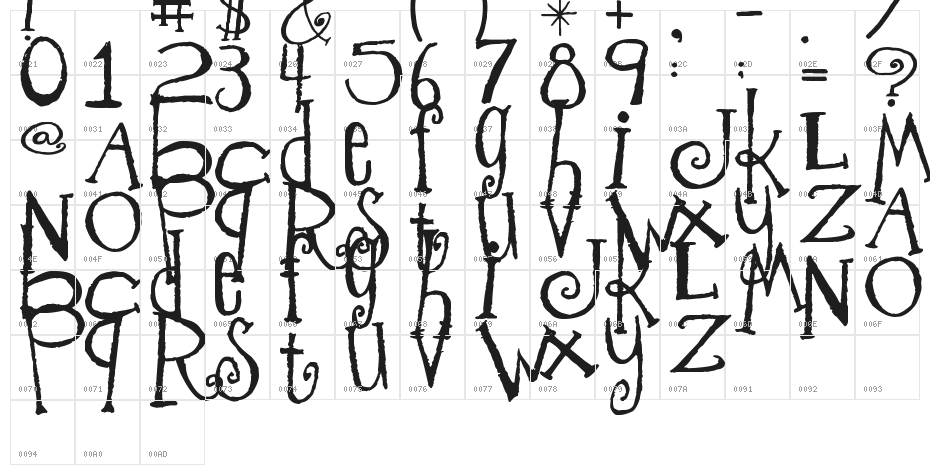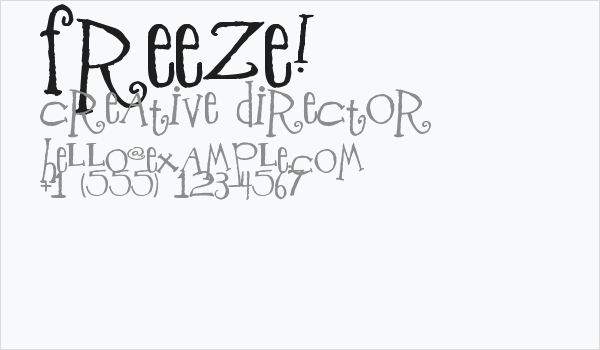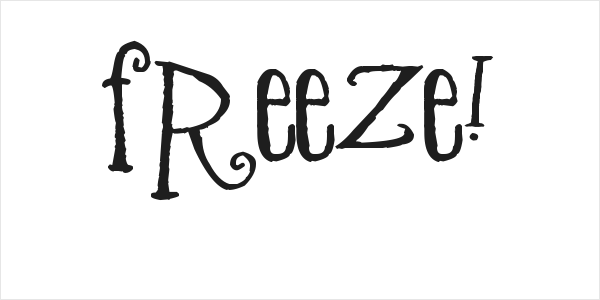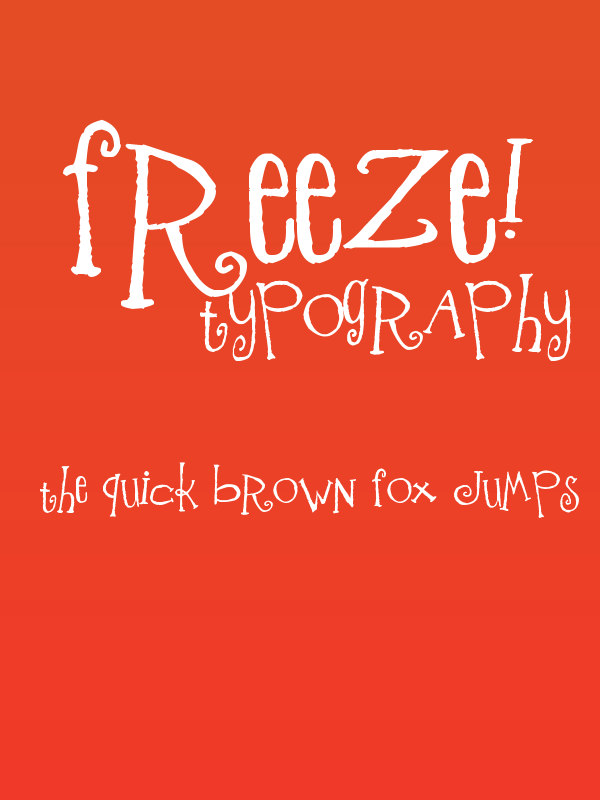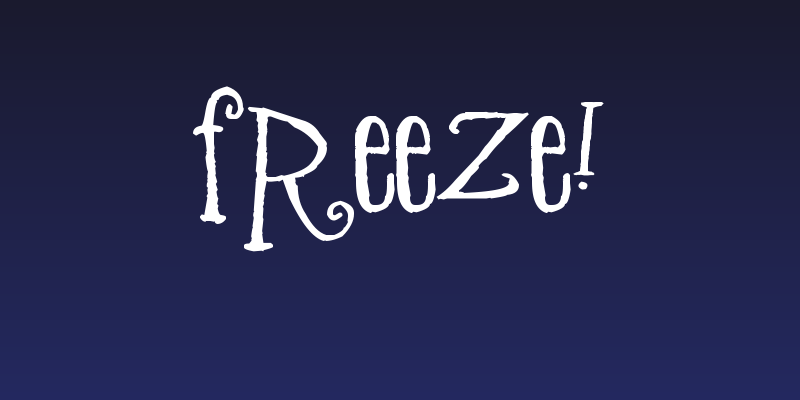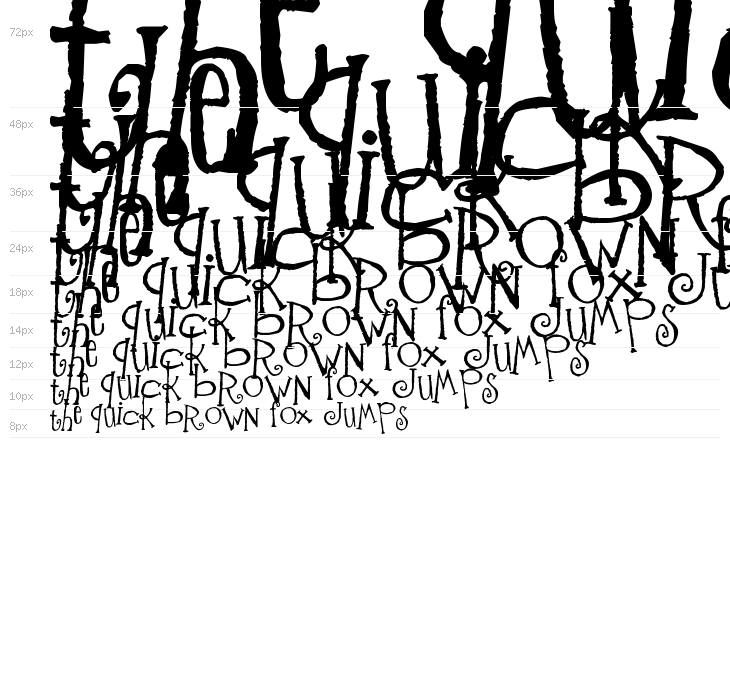
Freeze! Font
Freeze! Description
This font exhibits a playful and whimsical style, characterized by its irregular, hand-drawn appearance. The letters are tall and narrow, with exaggerated ascenders and descenders, giving it a quirky and artistic feel. Each character has a unique flair, with some featuring swirls or curls, adding to its decorative nature. The numbers are bold and distinctive, maintaining the same playful aesthetic. The special characters are equally expressive, with creative interpretations that match the overall theme. This font is ideal for projects that require a fun and informal touch, such as children's books, creative posters, or artistic branding.
| Width | Condensed |
| Overall Style | Whimsical, Artistic, Playful |
| Proposed Projects | Children's books, creative posters, artistic branding, informal invitations. |